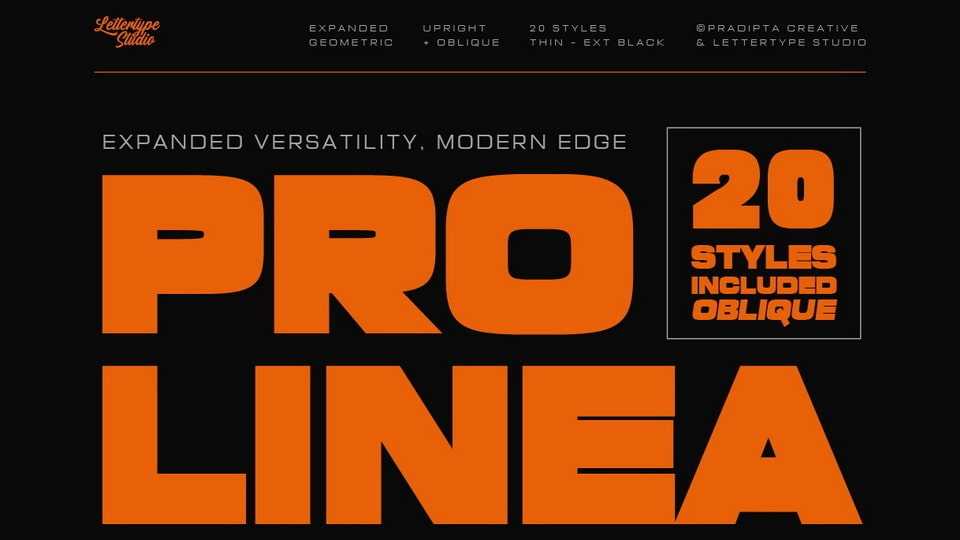
Download Prolinea font, a modern sans serif typeface designed with sleek proportions, clean geometry, and refined details, inspired by professional product naming like “Pro” in mobile devices.
Designer: Lettertype Studio